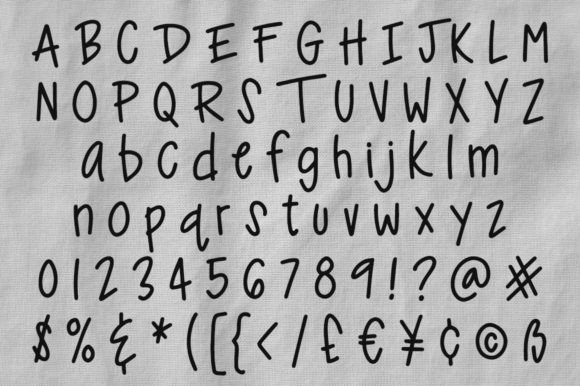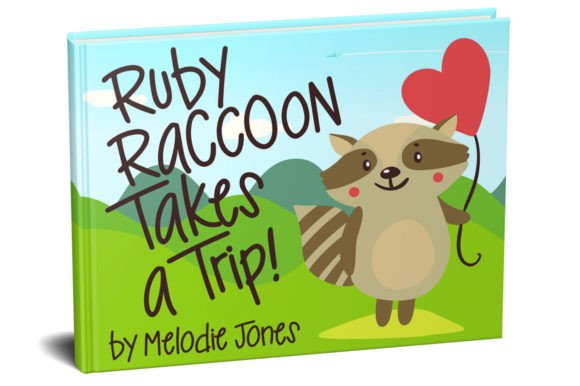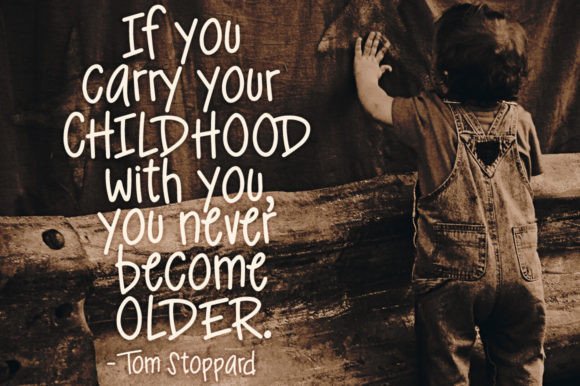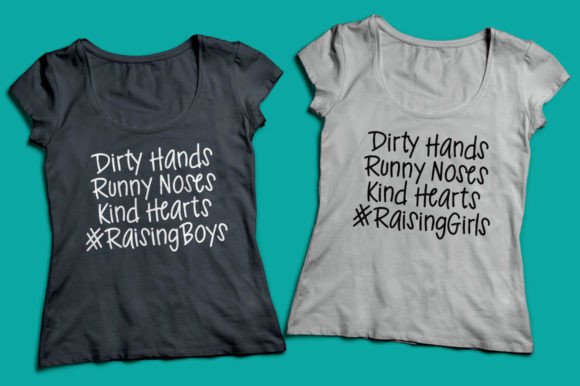
Introducing Ankle Biter Print Font: The Perfect Addition to Your Kid-Friendly Projects
Are you a designer or crafter looking for a fun and playful font to add to your kid-friendly projects? Look no further than Ankle Biter Print Font! This smooth, evenly-weighted print font is perfect for creating a variety of products, from water bottles and t-shirts to stickers and coloring books. With its hand-lettered look and extensive character set, Ankle Biter Print is sure to become a go-to font in your design arsenal.
What Makes Ankle Biter Print Font So Special?
Ankle Biter Print Font is designed to bring a touch of whimsy and fun to your designs. Its smooth, even lines and carefully crafted letterforms make it perfect for creating products that are both visually appealing and easy to read. Whether you’re working on a project for a boy or a girl, Ankle Biter Print lends a playful, hand-lettered look that’s sure to delight kids and adults alike.
Key Features of Ankle Biter Print Font
So what sets Ankle Biter Print Font apart from other fonts on the market? Here are just a few of its key features:
- Comprehensive character set: With A-Z, a-z, 0-9, and tons of punctuation, Ankle Biter Print Font has everything you need to create a wide range of designs.
- Extended Latin character support: Ankle Biter Print Font contains over 300 extended Latin characters, making it perfect for designs that require language support.
Why Designers and Crafters Love Ankle Biter Print Font
So why do designers and crafters love Ankle Biter Print Font? Here are just a few reasons:
- Versatile: Ankle Biter Print Font is perfect for a wide range of projects, from kid-friendly products to adult-oriented designs.
- High-quality design: With its smooth lines and carefully crafted letterforms, Ankle Biter Print Font is a high-quality design that’s sure to impress.
Tips for Using Ankle Biter Print Font in Your Designs
Here are a few tips for using Ankle Biter Print Font in your designs:
- Pair it with other fonts: Ankle Biter Print Font pairs well with a variety of other fonts, so don’t be afraid to experiment and find the perfect combination for your design.
- Use it for headlines and body text: With its clear, easy-to-read design, Ankle Biter Print Font is perfect for both headlines and body text.
- Experiment with colors and textures: Ankle Biter Print Font looks great in a variety of colors and textures, so don’t be afraid to get creative and try out new things!
| Font Name | Ankle Biter Print Font |
| Author | GeekMissy |
In conclusion, Ankle Biter Print Font is a fun, playful, and versatile font that’s perfect for designers and crafters who work on kid-friendly projects. With its smooth lines, comprehensive character set, and easy-to-use design, Ankle Biter Print Font is sure to become a go-to font in your design arsenal. So why wait? Download Ankle Biter Print Font today and start creating fun and engaging designs for kids and adults alike!